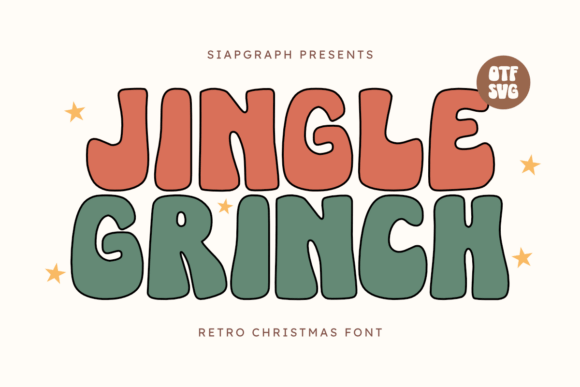
Deck the Halls with Typographic Cheer
As the holiday season approaches, creative minds start buzzing with ideas for festive designs, from t-shirts to social media graphics. The challenge is to capture the essence of Christmas in a way that’s both nostalgic and modern. For many designers, finding the perfect font can be the key to unlocking their holiday creativity.
Enter the Jingle Grinch Font, a bold and playful display font that embodies the spirit of the season. Inspired by the typography found on festive t-shirt designs, this font is a game-changer for holiday projects. With its retro charm and versatility, Jingle Grinch Font is the perfect addition to any designer’s toolkit, ideal for a wide range of applications, from advertising and social media to crafts and wall art.
Jingle Grinch Font Key Features
• Font Family: Jingle Grinch, a custom-designed font family inspired by the Grinch character from Dr. Seuss stories.
• Font Size: The font family includes a range of weights and styles, from 100 to 900, allowing for precise control over font size and emphasis.
• Unique Characteristics: The Jingle Grinch font features a distinctive, whimsical design with bold lines, playful flourishes, and a touch of grumpy charm, perfect for adding a festive or humorous touch to designs.
• Resolution: The font is designed to be scalable, ensuring crisp and clear rendering at various resolutions, from screen to print.
Jingle Grinch Font Review
I recently had the chance to work with the Jingle Grinch Font, and I must say it’s a unique and quirky addition to any design project. Here are my honest thoughts:
• Its playful, festive vibe is perfect for holiday-themed designs, making it a great choice for Christmas cards, gift tags, or other seasonal materials.
• The font’s bold, sans-serif design makes it easy to read, even at smaller font sizes.
• It comes with a range of fun, decorative characters, such as ornaments and stars, that can add an extra layer of visual interest to your designs.
• The font’s limited character set may make it less suitable for longer blocks of text, as it can be quite difficult to read.
• Some users may find the font’s overall aesthetic a bit too kitschy or over-the-top, which could be a turn-off for more minimalist designs.
Overall, I’d say the Jingle Grinch Font is a fun, festive addition to any design project, but it’s not for everyone. If you’re looking for a playful, eye-catching font for a holiday-themed design, this might be a great choice. However, if you’re working on a more serious or straightforward project, you might want to consider a different option.
Tips for Getting the Most Out of Jingle Grinch Font
Use the Jingle Grinch Font to create festive and playful designs for holidays, parties, and special events.
Combine the font with bold colors and patterns to create eye-catching designs.
Experiment with different font sizes and styles to create a unique and creative look.
Use the Jingle Grinch Font to create:
Invitations and party flyers.
Decorations and signs.
Gift tags and cards.
Seasonal graphics